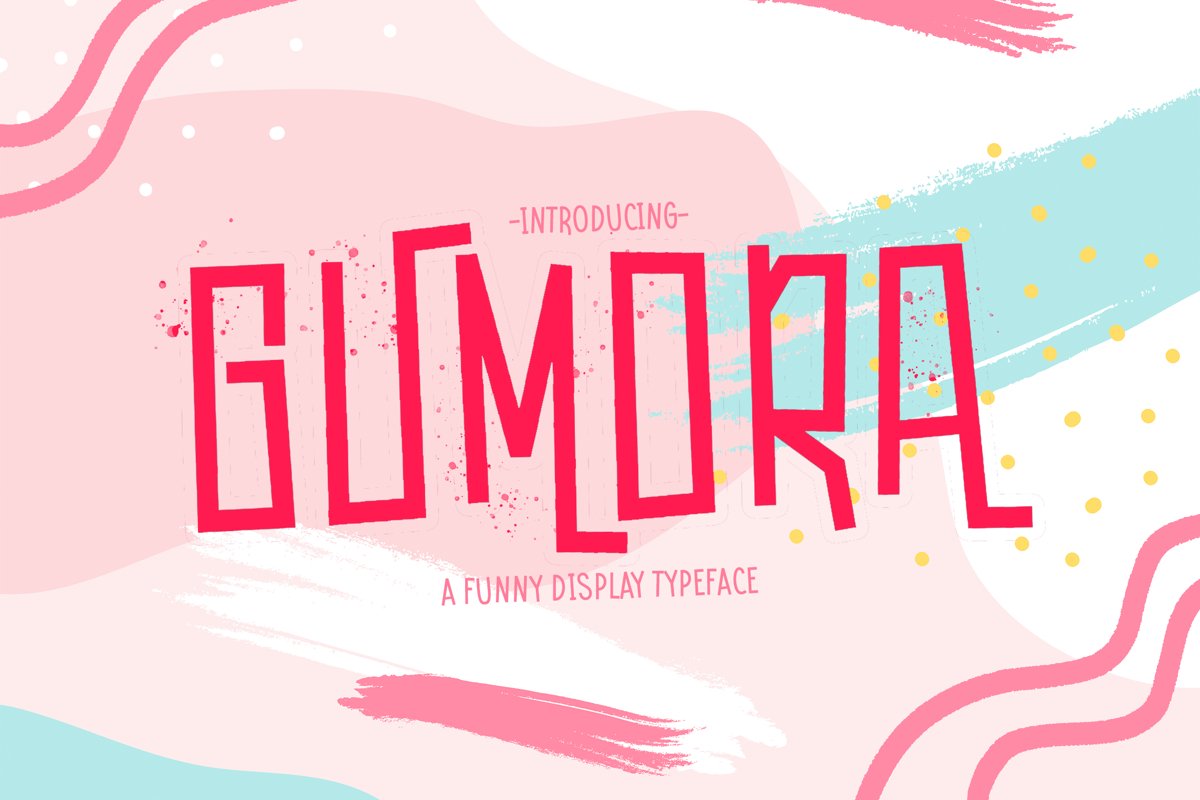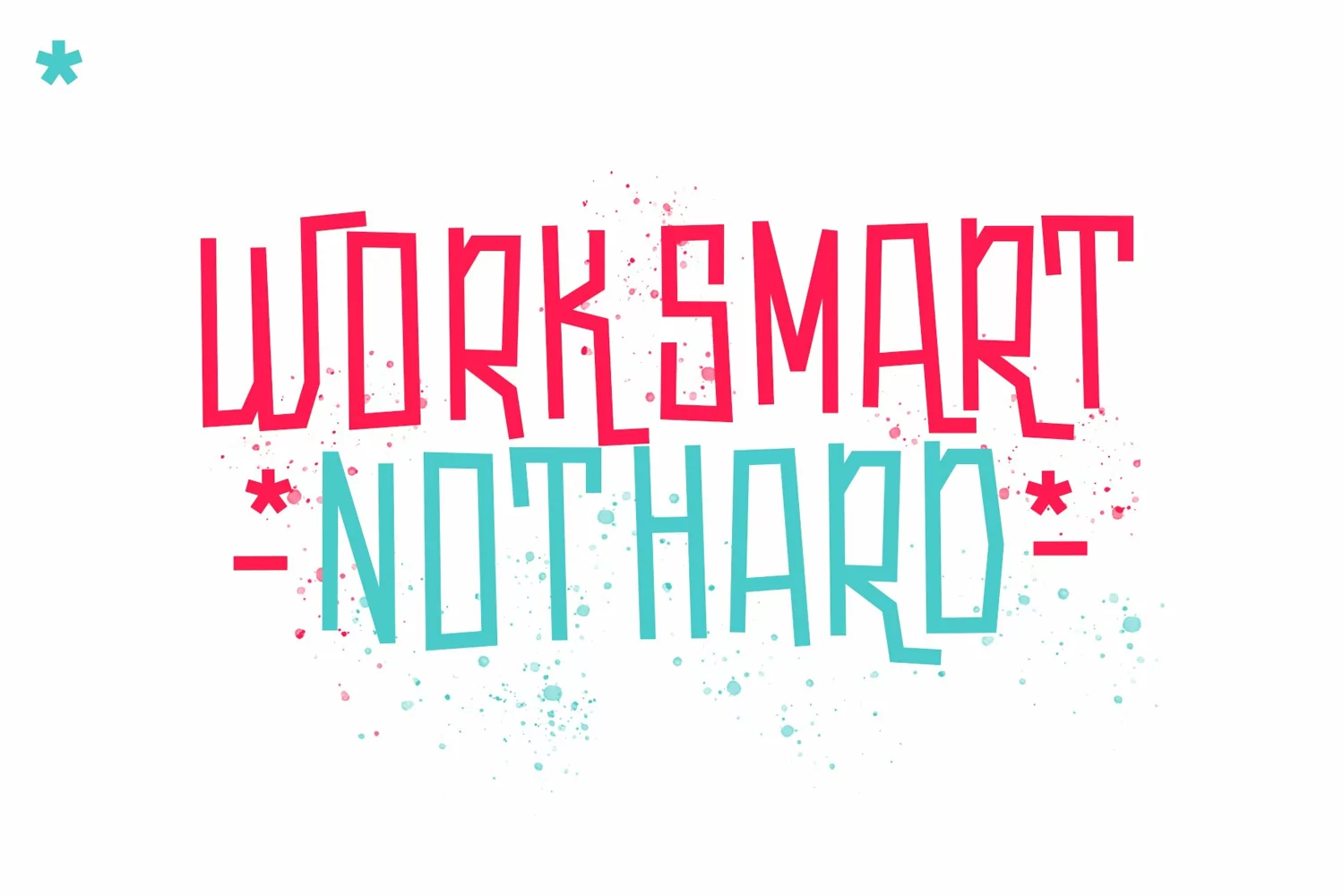
Gumora is a display typeface. Perfect for display, quotes, posters, logo, logotype, branding, business card, crafting needs, print, t-shirt, mug, merchandise, packaging, and many more.